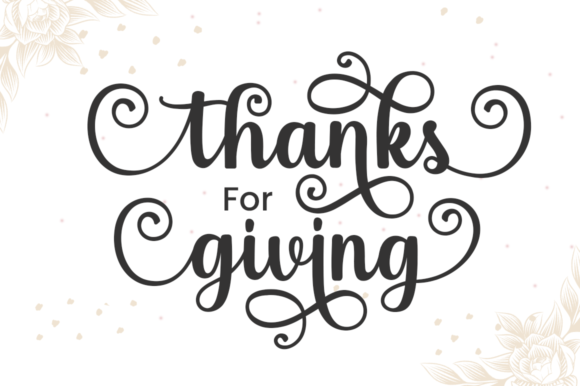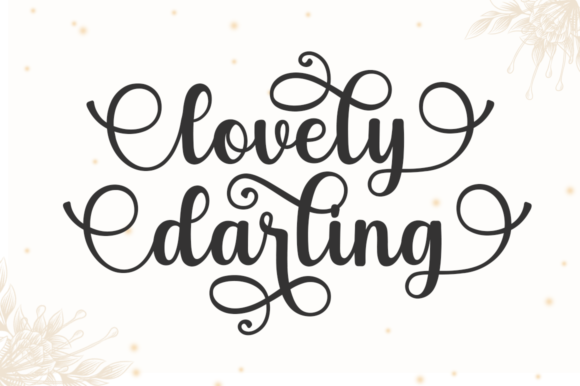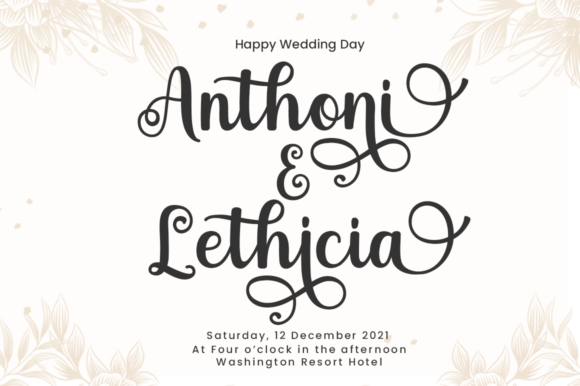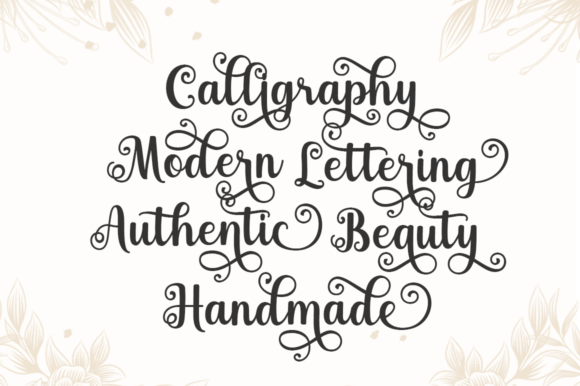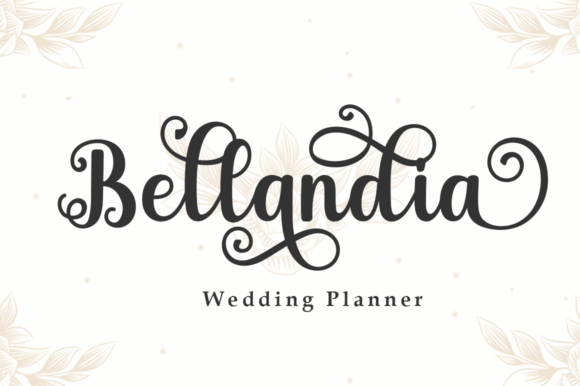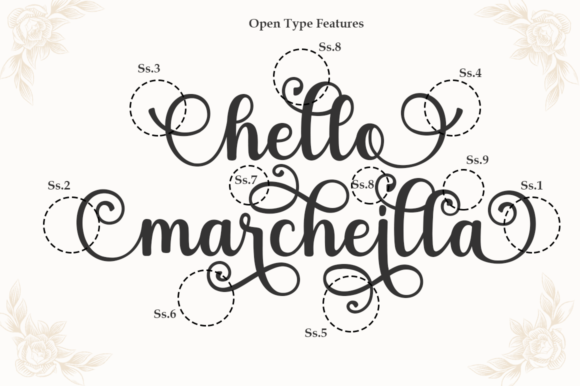
Introduction to Simply Blessed Font
Have you ever found yourself staring at a blank canvas, searching for the perfect font to bring your creative project to life? For many designers, this is a familiar moment of frustration and inspiration. It was during one such moment that I stumbled upon the Simply Blessed Font – a lovely and delicate script font that exudes elegance and class.
This font is not only a beautiful addition to any design, but it’s also incredibly versatile. With its PUA encoding, you can access all glyphs and swashes with ease, making it a valuable resource for designers looking to add a touch of sophistication to their work. Whether you’re working on a high-end branding project or creating a beautiful invitation, the Simply Blessed Font is sure to impress.
Key Features of Simply Blessed Font
- High-quality design resource for creative projects: Simply Blessed Font is a beautiful and elegant font perfect for various design applications, including wedding invitations, greeting cards, and more.
- Unique script style: This font features a unique script style, making it perfect for adding a personal touch to your designs.
Honest Review: Simply Blessed Font
I recently stumbled upon the Simply Blessed Font, and I must say, it’s a beautiful addition to any design project. This high-quality font is perfect for those looking to add a touch of elegance and sophistication to their work.
- ✨ Elegant and refined design, making it perfect for creative projects.
- ✨ Great for use on a transparent background, allowing the text to take center stage.
- ✨ High quality and crisp, even at larger font sizes.
However, I did encounter a few limitations with this font.
- ⚠️ Limited character set, which may not be ideal for those who need a wide range of characters.
- ⚠️ Not suitable for use in situations where a bold or italic font is required.
Overall, I’m impressed with the Simply Blessed Font. Its elegant design and high quality make it a great addition to any design project. While it may have a few limitations, it’s still a fantastic resource for designers looking for a beautiful, free font.